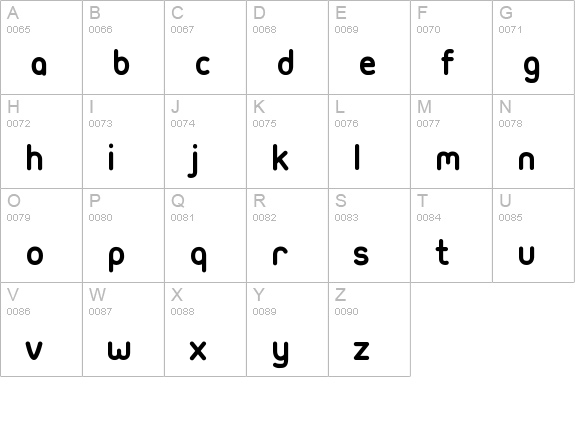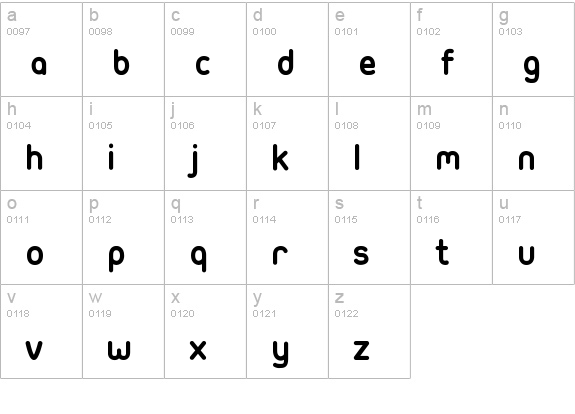
Ubuntu-Title Font Details
Introducing Ubuntu-Title font, a versatile and modern typeface that exudes sophistication and elegance. This sleek and stylish font is perfect for creating eye-catching headlines, titles, and branding materials. With its clean lines and unique design, Ubuntu-Title font adds a touch of class to any project. What sets Ubuntu-Title font apart is that it is completely free to download. Yes, you read that right! This high-quality font is freely available for download at FontsMarket.com, making it accessible to everyone looking to enhance their designs with a premium font without breaking the bank. Whether you are working on a website, logo, poster, or any other design project, Ubuntu-Title font is sure to make a lasting impression. Don't miss out on this fantastic opportunity to elevate your designs with this exceptional font. Download Ubuntu-Title font today and take your projects to the next level!